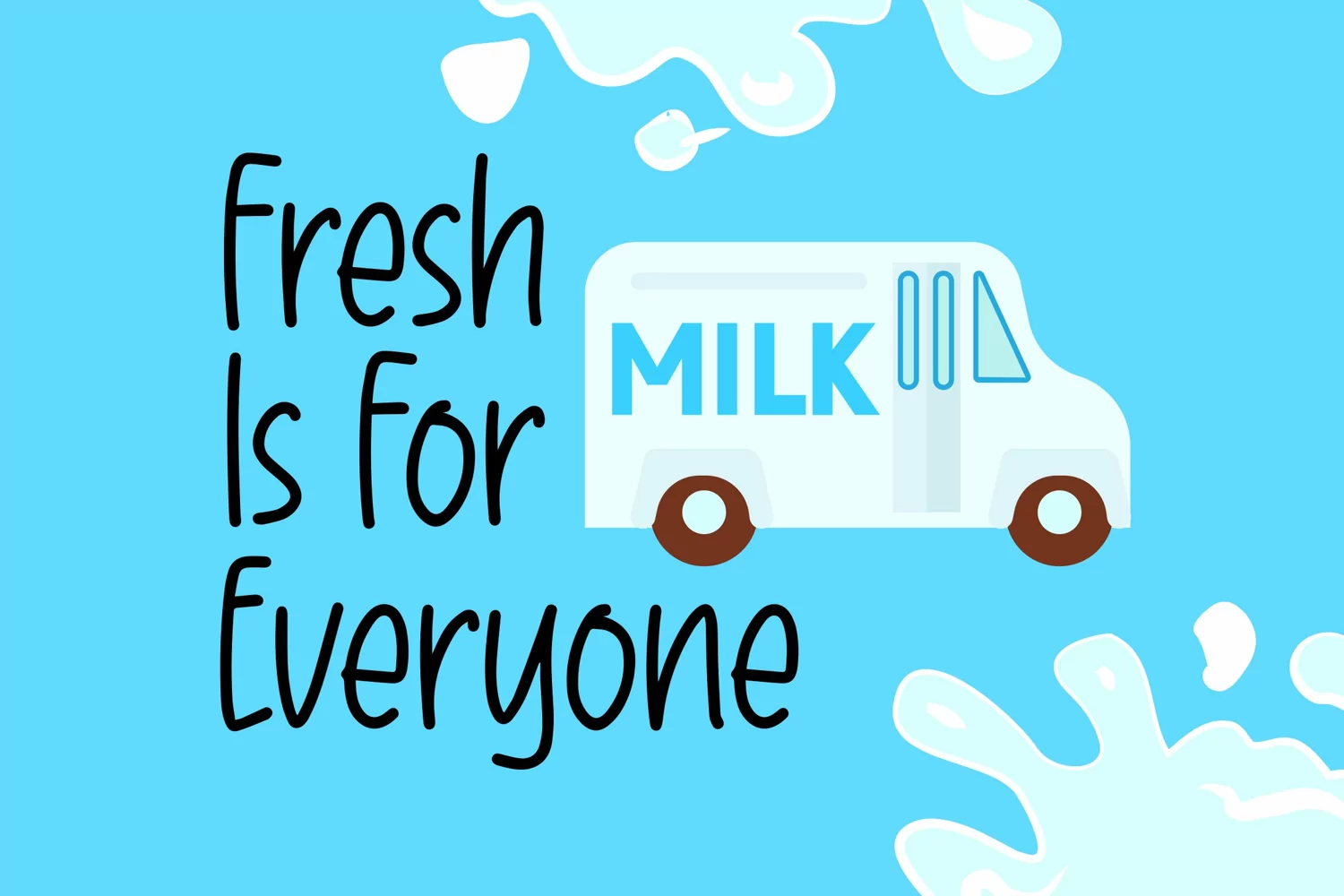
Milkypump - Handrawn Monoline Font that contain lowercase, uppercase, symbol, and also support multi language. There’s a lot ligatures in this font. This Font also comes with ligatures, alternates and many more. this font suitable for fashion, branding, catalog and other design what you want.